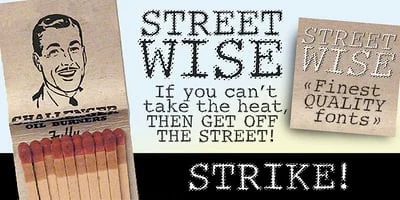
Streetwise Font
The Streetwise Font is excellent for urban fashion brands, street art galleries, hip-hop culture magazines, underground music venues, skateboarding company logos, graffiti-inspired campaigns, inner-city community centers, and authentic street culture promotions. This gritty typeface works wonderfully in applications where street credibility and urban authenticity need to be emphasized, making it perfect for brands that want to communicate genuine street knowledge and urban cultural connection through bold, street-smart typography.
What makes Streetwise Font exciting is its urban intelligence and street-smart character that captures the essence of city survival and cultural authenticity. The font's rough letterforms and street-inspired design create an atmosphere of real-world experience and urban wisdom, making it ideal for brands that want to connect with audiences who value authenticity over polish and street knowledge over academic theory. Its credible presence ensures that every application feels genuinely connected to street culture with authentic urban appeal and grassroots credibility.
The Streetwise Font family typically includes regular, bold, and distressed weights, often featuring urban textures, street art elements, and city-inspired symbols that enhance its authentic appeal. Many versions include graffiti effects, concrete textures, and specialized characters that provide designers with comprehensive tools for creating authentic street culture design projects with genuine urban sophistication and street-level authenticity.
For designers working on projects that require street authenticity and urban credibility, Streetwise Font provides exceptional cultural appeal. Its ability to instantly communicate street knowledge and urban experience makes it an invaluable choice for street culture brands, community organizations, and any project requiring typography that embodies the wisdom of street experience, the authenticity of urban culture, and the sophisticated appeal of genuine street-smart intelligence and grassroots community connection.